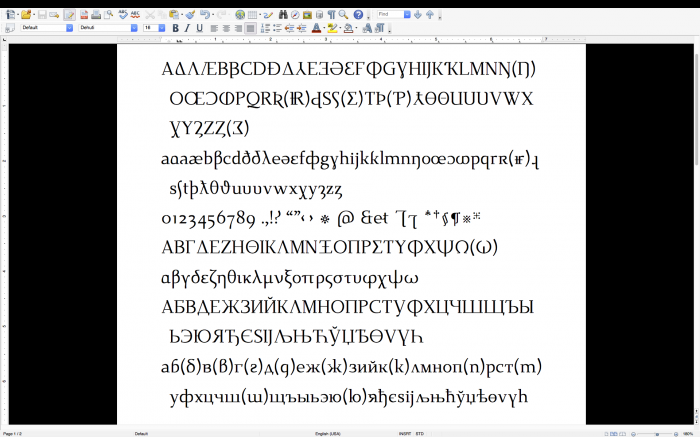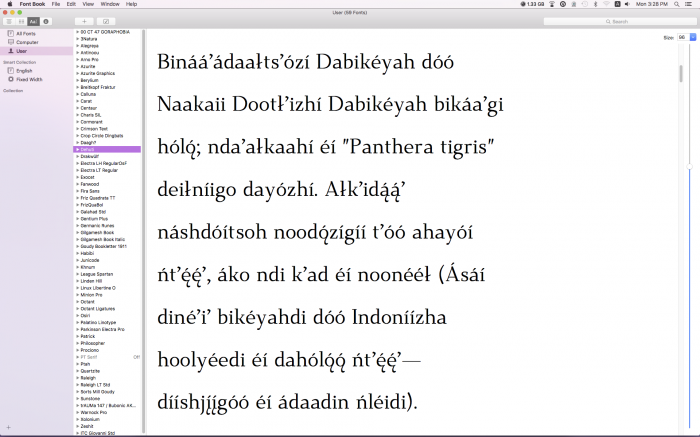
Deḥuti /de.'hju:.ti:/, formerly Tehuti, took me just over a year to complete. It is my first text font; it is also not a fontstruction. A lot of that time went into deciding its overall look. Eventually, it decided that it wanted to be modern, i.e., experimental, and so it is. The design is heavily influenced by Dwiggins' Electra, with touches from Palatino, Fairfield, and Goudy Old Style. Dehuti, which is available on Font Squirrel, Font Library, or Smart Fonts, includes a book, italic, bold, and a bold-italic version. The Alt (alternate) versions simply differ in the vertical spacing,, i.e., they are closer set. Enjoy. :)
The other fonts, indicated by pairs of glyphs above, are fontstructions that I created years ago. They are: Osiri (originally Azurite), Daaghu, Quartzite, Sunstone, and Drakwulf, which I made into a font for a friend.
A sample of the "basic" alphabets. The letters in parentheses are alternates that follow the originals, i.e., Eng, Yr, Esh, Thorn, Ezh, Omega, be, ve, ghe, et cetera. :)
Here's some Native American.
Here's some more Native American (diné). I included a diacritic table for replacing the dots on any i's or j's.
Dehuti has been updated—it's now the same point size as other fonts. During it's creation, the more characters I added to the PUA seemed to affect the overall size of the glyphs themselves, which is why it ended up being so small. I've fixed that because I finally figured out how to do it. Enjoy. :)
Update 10/17/2016. I've slightly altered a few of the characters, updated and added more currency symbols, relocated some glyphs, and added quite a few more glyphs as per the newest additions to Unicode.
03/23/17: Dehuti has been updated. It now has polytonic Greek, plus the remaining punctuation for it, a few relocated characters, slightly tweaked bold X’s, a few new characters, such as an alternate exclamation mark for math (2757), and an alternate logical not sign and obelus/divide sign in the bold versions, i.e., 00AB and 00F7, for use as dashes—Russian, Polish, et cetera. I’ve also redrawn and added the majority of math symbols, APL, arrows, geometric shapes, and more pictographs. In other words, the original book font has about 1,600 new glyphs. There are also alternate or reversed glyphs in the bold versions for the arrows, mathematical operators, geometric shapes, and pictographs.
04/16/17: Updated again. I've added a couple more glyphs, including one that I missed, and removed a few from the PUA that I just now noticed were repeated glyphs that already have code points. This happened because of my update to Ptah, which is interchangeable with Dehuti. Namaste, peeps.
05/28/17: Updated. I've added a couple more glyphs to the bold version, and four new alternate-spaced versions (Dehuti Alt, et cetera), for ebooks or general usage. The spacing concerns the vertical spacing, which in the normal version is set high to accommodate diacritic use without overlapping or clipping. —Enjoy. :)
Check out Dehuti's cousin, Dehjuti, which is now available on MyFonts.
Dehjuti is similar in many aspects, e.g., all the majuscule letters in basic Latin are the same, with the exception of W. This is not so outside of basic Latin; Æ and ß are different, for example. For the minuscule, e, f, g, p, q, and r, are different. For some, the difference is obviously noticable; for others, minimal, such as p and q, and all other descenders, which now have full serifs.
All punctuation, with the exception of the dots, has been altered—this includes the reference marks, such as the asterisks.
Nearly half of the diacritics have been redesigned/altered.
There are alterations to many of the Cyrillic and Greek letters. All additional blocks pertaining to Latin, Greek, and Cyrillic, have been filled in, with the exception of a few characters. Basic Coptic has finally been added.
All together, the new design has a better harmony, and nearly 900 new glyphs. It also has three variants, which pertain to differing Cyrillic, i.e., Regular, Bulgarian (B), and Macedonian/Serbian (MS).